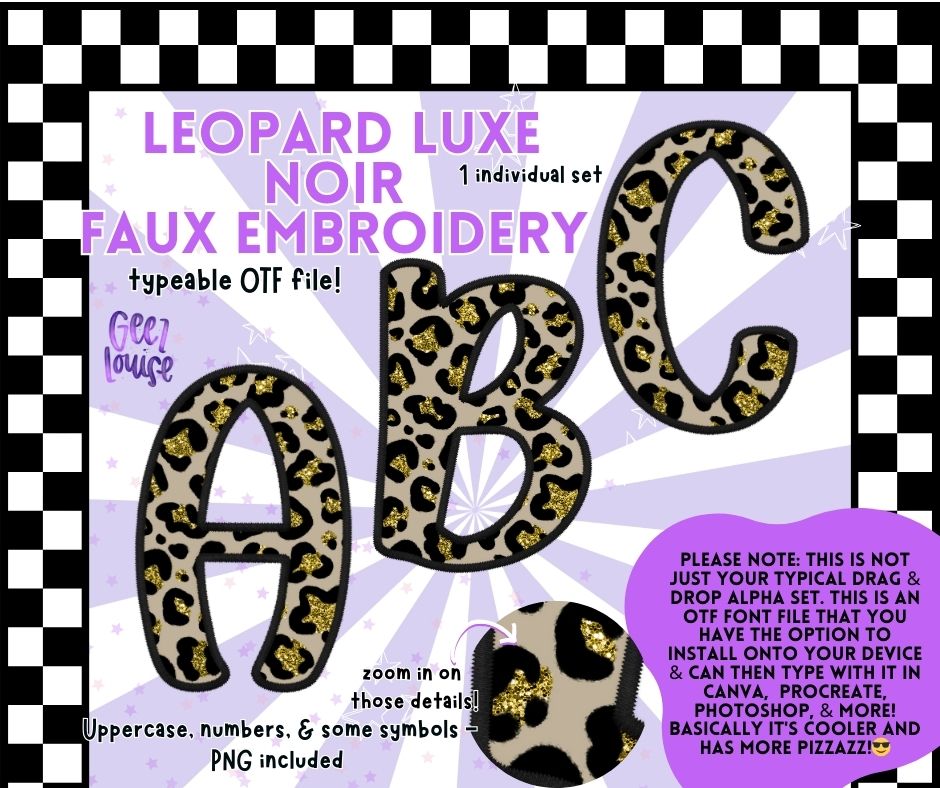
Leopard Luxe Noir – Faux Embroidery Glitter Leopard Print OTF Alpha Font + PNGs
Add instant wild glam to your designs with Leopard Luxe Noir – a typeable OTF font featuring faux embroidered black-edged leopard print with sparkling gold glitter spots. This bold and luxurious alpha includes uppercase letters, numbers, and symbols in both OTF format for typing and high-res 300 DPI transparent PNGs for drag-and-drop ease.